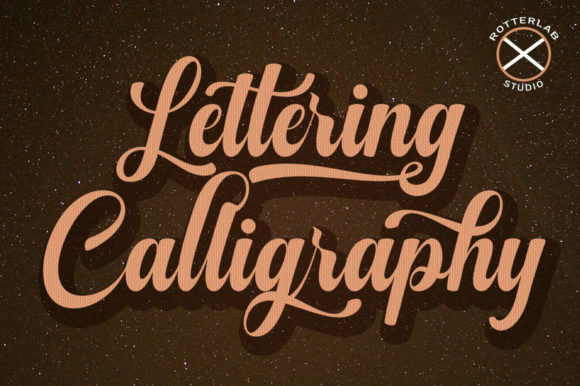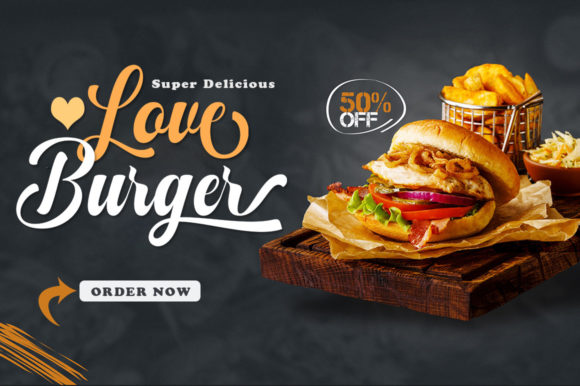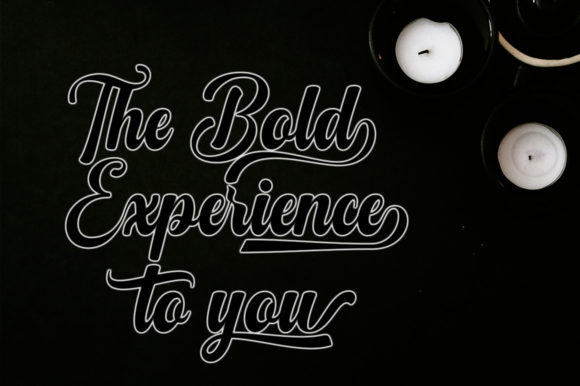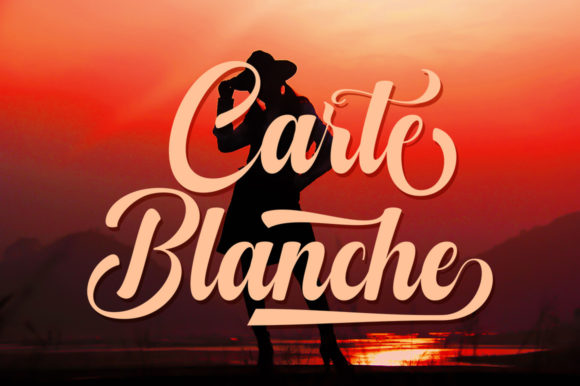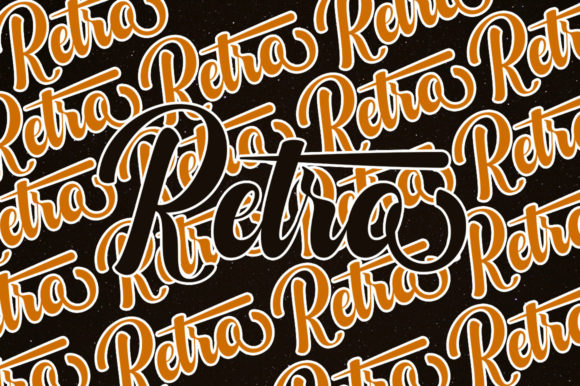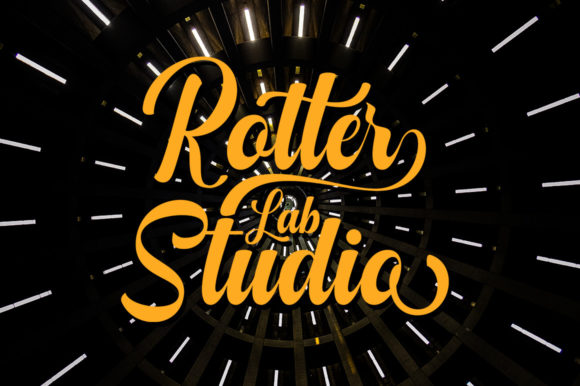
Introduction to Ambrogio Font
Have you ever stumbled upon the perfect font that just makes your creative project pop? For me, that moment came when I discovered the Ambrogio Font – a sophisticated and bold handwritten font that exudes confidence, authenticity, and charm. Whether you’re working on a branding project, crafting a special card, or designing labels, this font is sure to elevate your design to the next level.
As a designer, I know how valuable it is to have high-quality design resources like the Ambrogio Font at our disposal. With its PUA encoded feature, you can easily access all the amazing glyphs and ligatures to add that extra touch to your work. Plus, with a transparent background, you can seamlessly integrate it into your design without any distractions.
Ambrogio Font
- High-quality font with a transparent background, ideal for creative projects that require a clean and modern look.
- Designed to be versatile, Ambrogio Font is suitable for a wide range of creative projects, from logos and branding to typography and web design.
Honest Review: Ambrogio Font
- ✨ Elegant and modern design that works well for various creative projects
- ✨ High quality and crisp typography that’s perfect for printing
- ✨ Transparent background, making it easy to layer and manipulate
- ✨ A wide range of weights and styles to choose from
- ⚠️ Some users may find the font too bold or overpowering for certain designs
Overall, I’m thoroughly impressed with the Ambrogio Font. Its high quality, versatility, and ease of use make it a valuable resource for any designer. Whether you’re working on a personal project or a commercial design, this font is sure to deliver.
Ambrogio Font is commonly used in creative projects, such as graphic design, digital art, and branding. It is also used in presentations, reports, and documents where a high-quality, transparent background font is required.